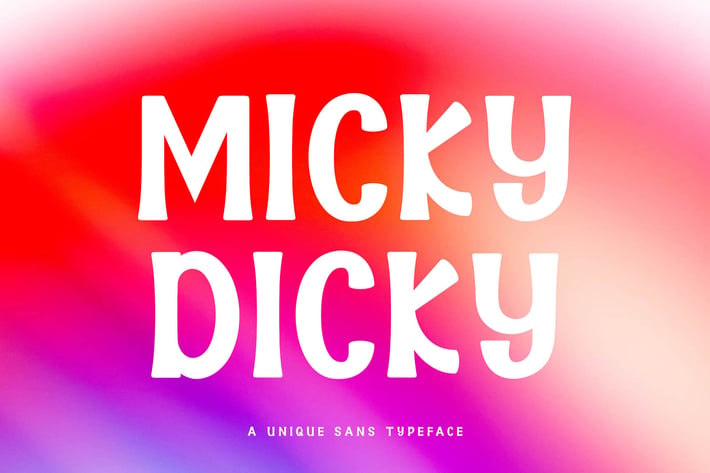
Micky Dicky Modern Sans Font Typeface
Micky Dicky Modern Sans Font inspired by the famous minimalist logo perfect for the purposes of designing templates, brochures, videos, advertising branding, logos, invitation, layout design, elegant crafting, beauty design and more.